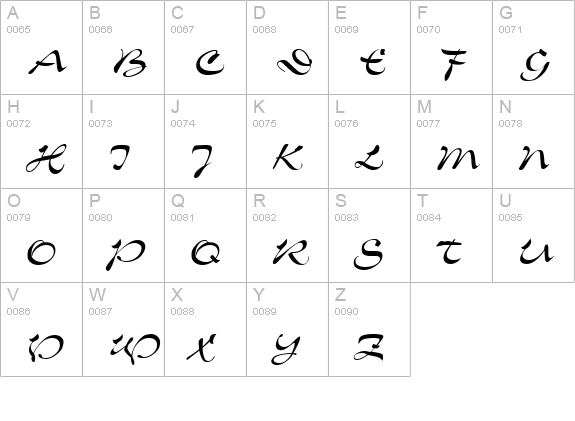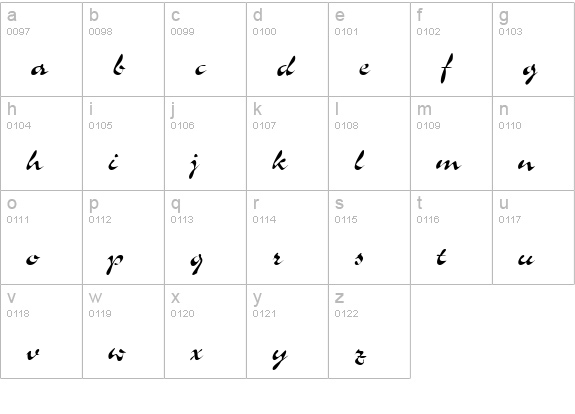
Inferno Font Details
The Inferno font is a fiery and dynamic typeface that exudes energy and passion. With its bold, sharp edges and intense design, this font is perfect for making a bold statement in your projects. Whether you're creating a poster, logo, or branding materials, Inferno will set your work ablaze with its powerful presence. The best part? Inferno font is completely free to download at FontsMarket.com. So you can easily add this striking typeface to your collection without any cost. Don't miss out on the opportunity to enhance your designs with the captivating Inferno font. Download it now and let your creativity burn bright!